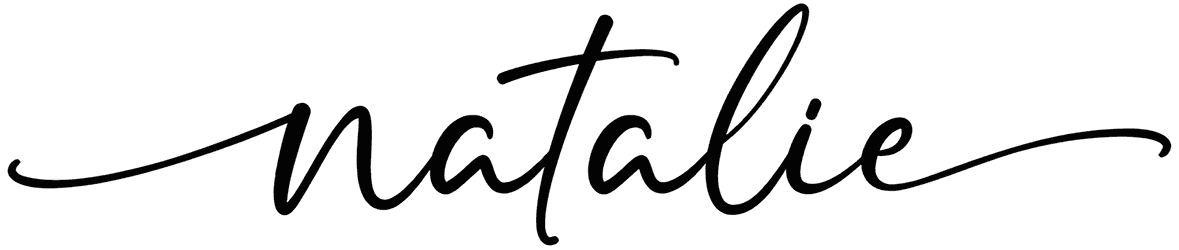
Natalie Font
Natalie font combines thin and thick lines, which adds to its naturalness. If you are looking for a calligraphy font for personal use, this would be the perfect choice for documents, diaries, birthday greeting cards, weddings, and flower shop logos. When you use this script font, you will notice that it has connected characters, which reduces its readability when you use it.